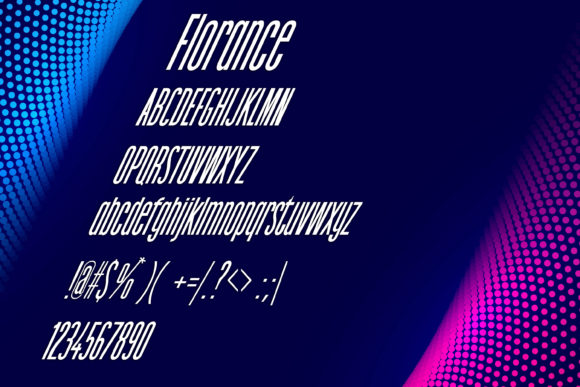
Introduction to Florance Font
Florance is a stunning and strong display font that’s great for any modern, or even futuristic design projects.
Florance is a stunning and strong display font that’s great for any modern, or even futuristic design projects!
Key Features of Florance Font